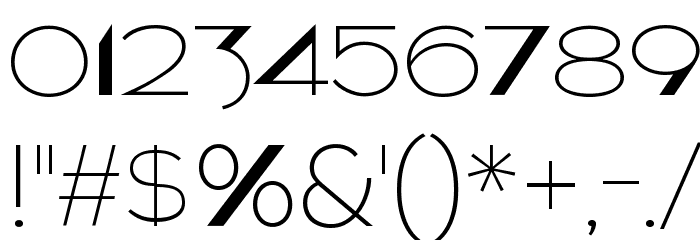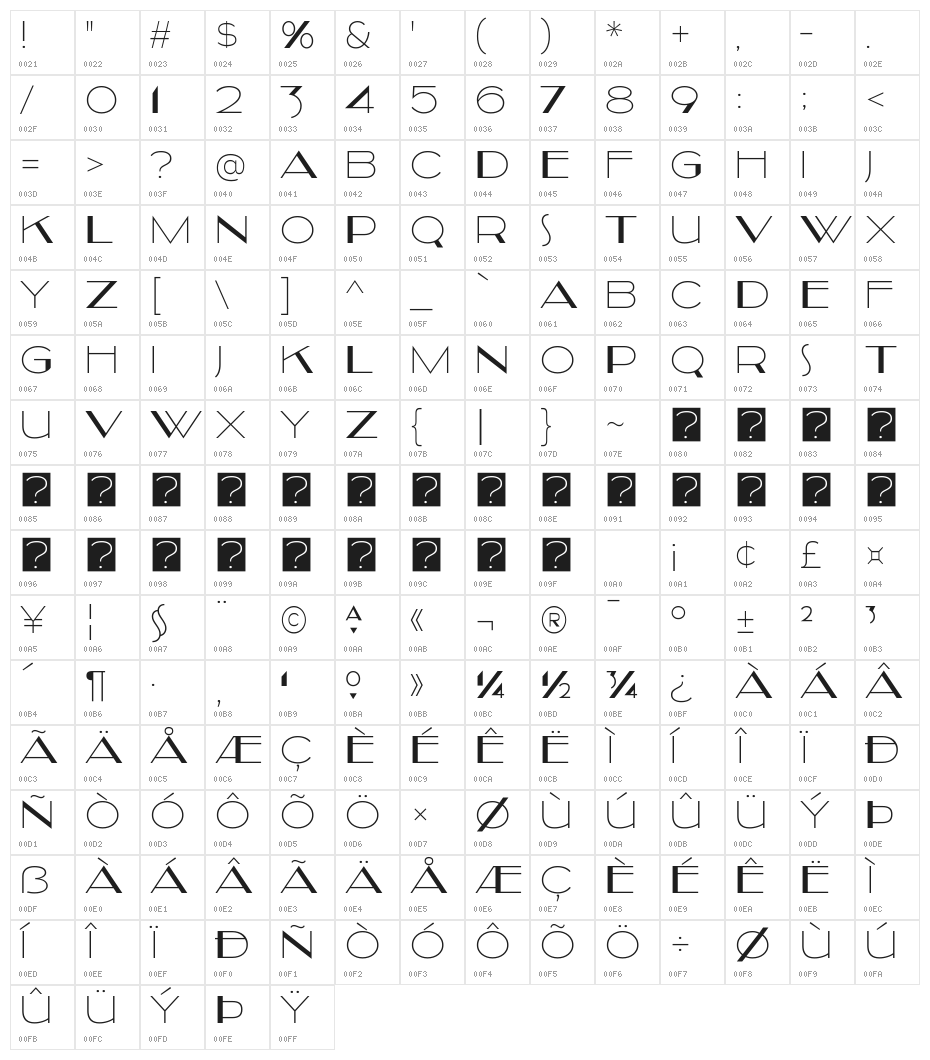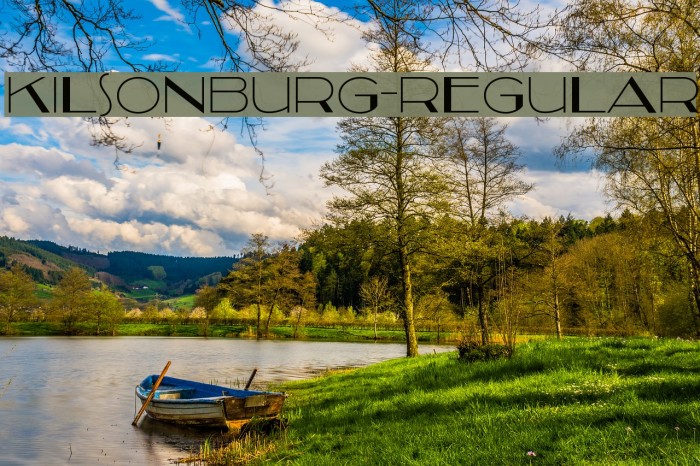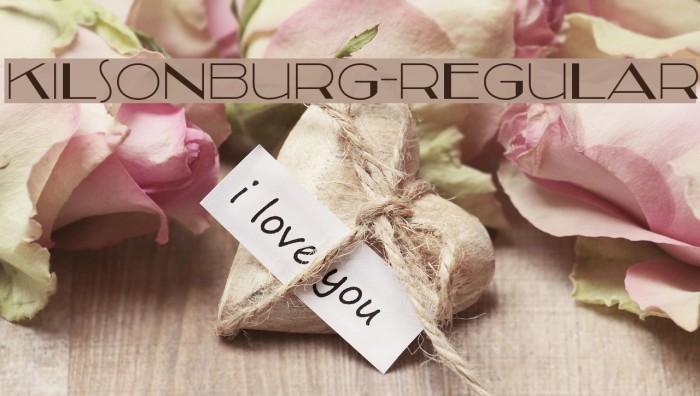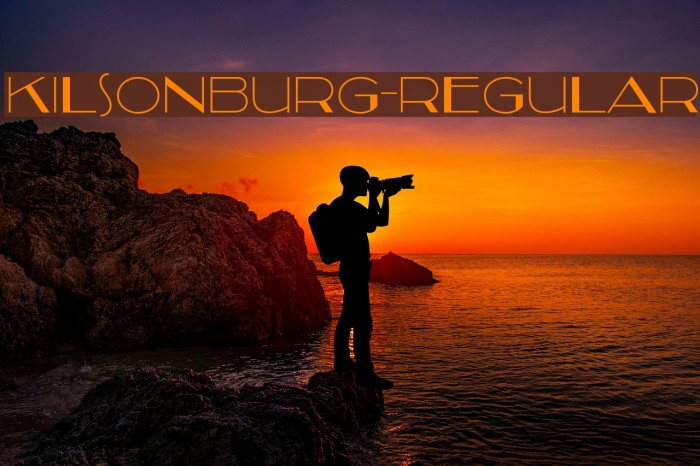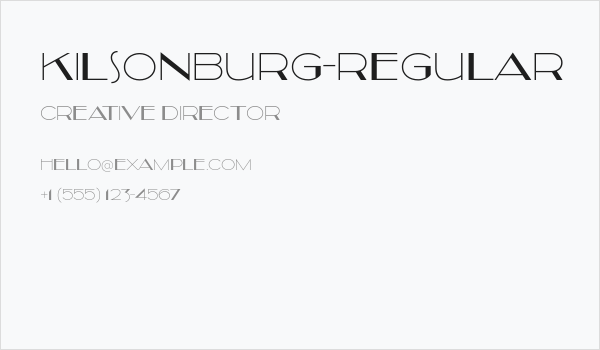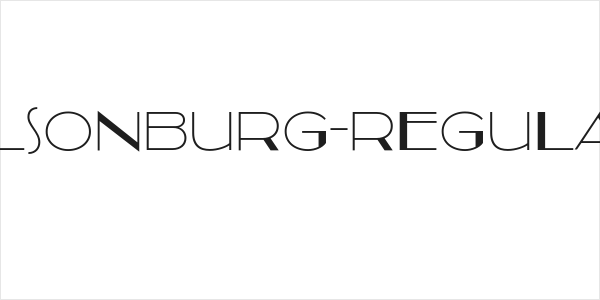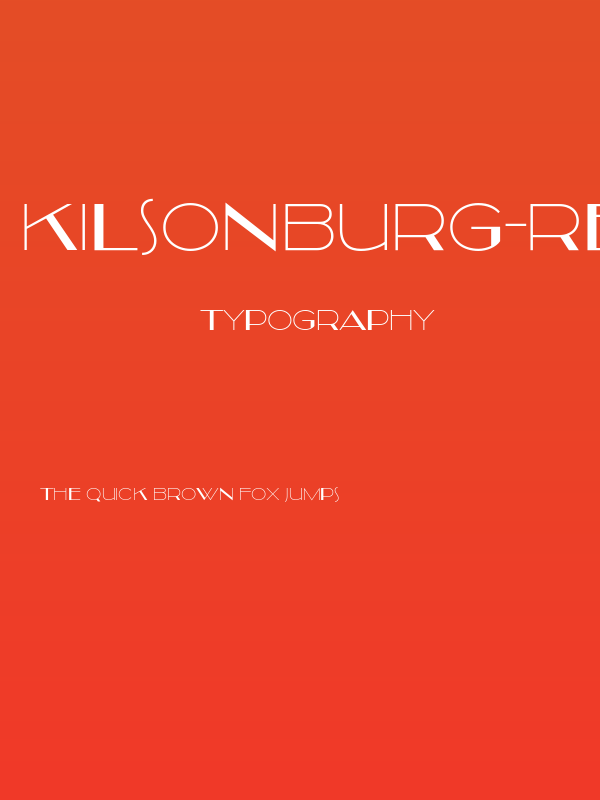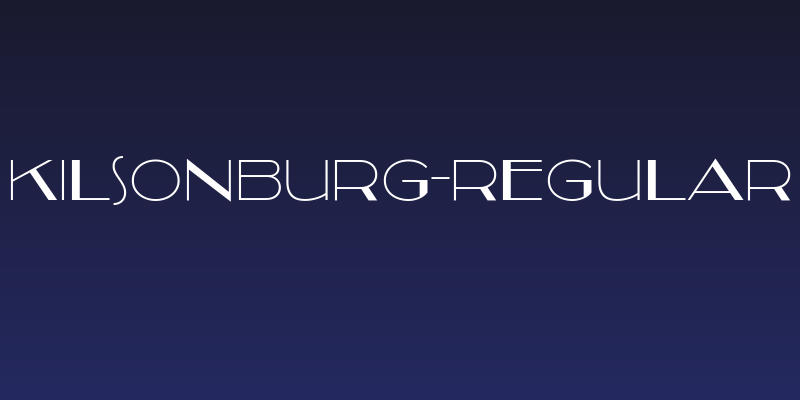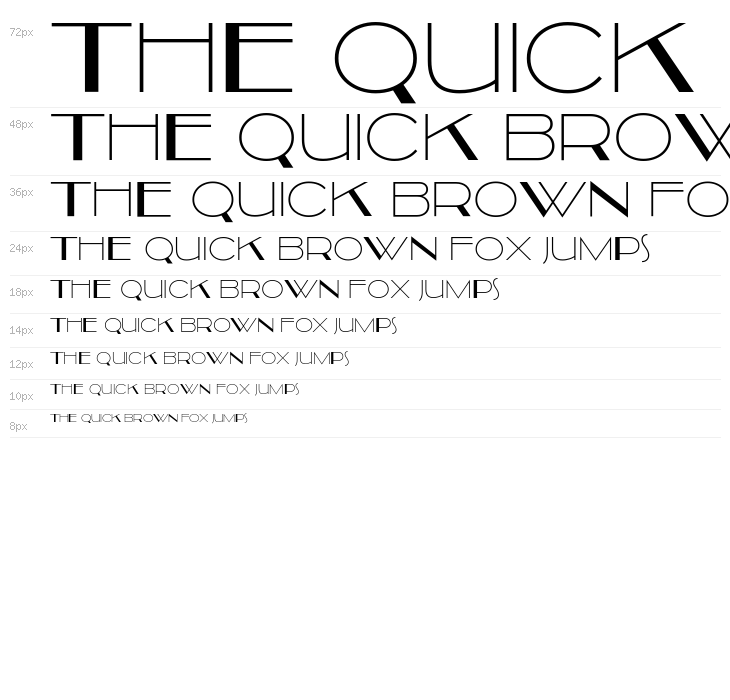
Kilsonburg-Regular Font
Kilsonburg-Regular Description
This font features a modern and sleek design with a geometric influence. The uppercase letters are characterized by clean lines and sharp angles, giving them a futuristic appearance. The lowercase letters maintain a consistent style, with some unique curves and cuts that add to the overall aesthetic. The numerals are distinct and align well with the alphabet, ensuring readability. Special characters are designed to complement the font's modern style, making it versatile for various uses. The overall impression is one of sophistication and contemporary elegance.
| Proposed Projects | Ideal for branding, advertising, and editorial design projects that require a modern and sophisticated look. |